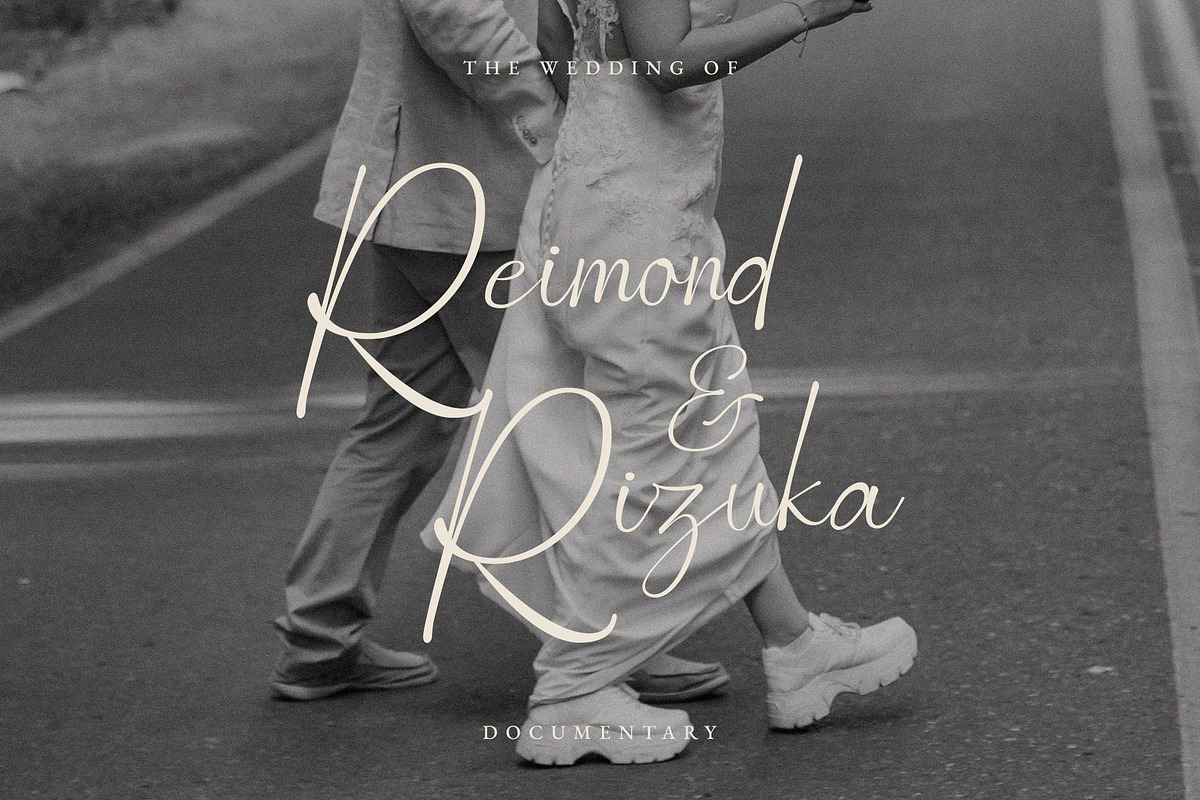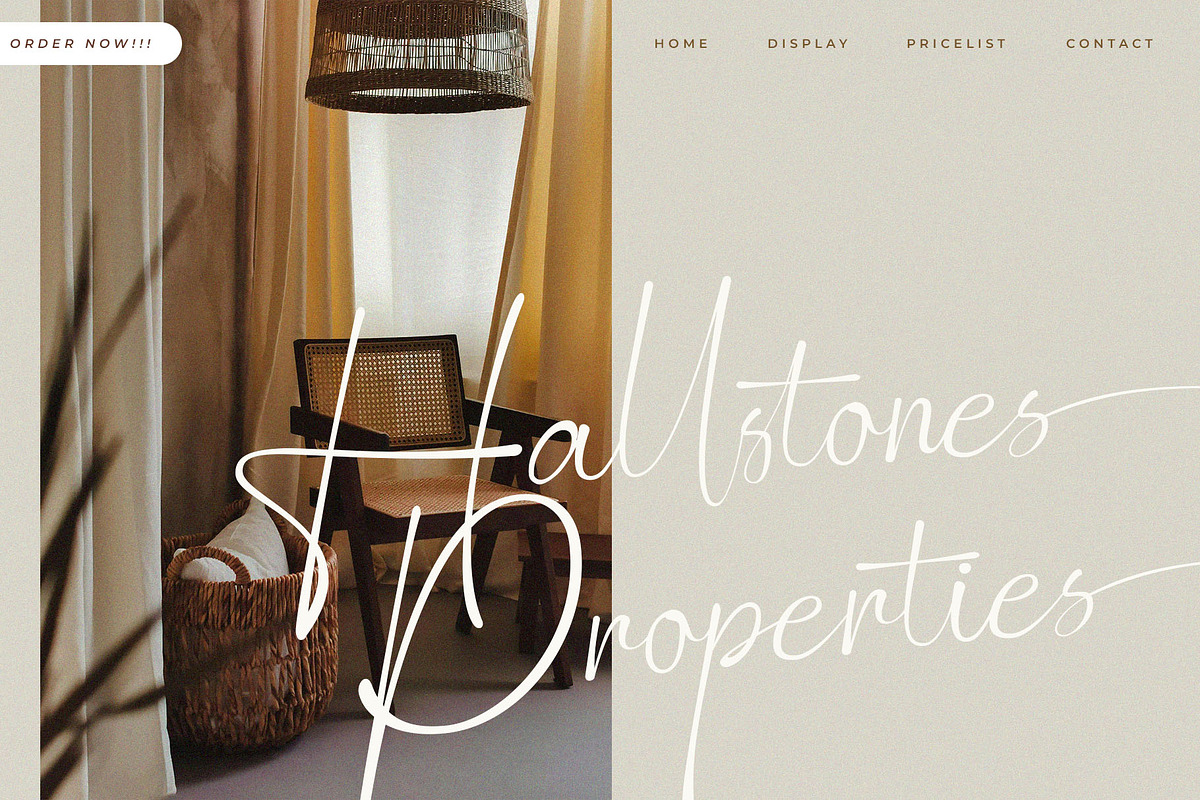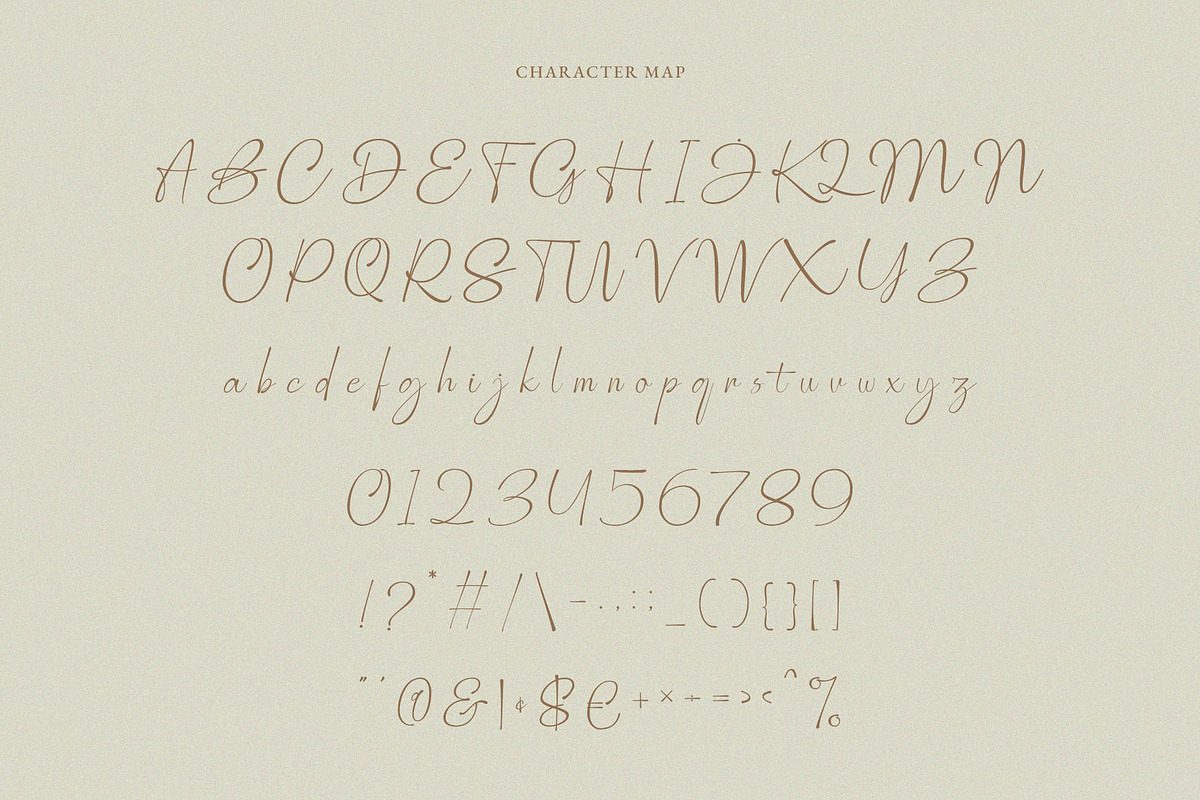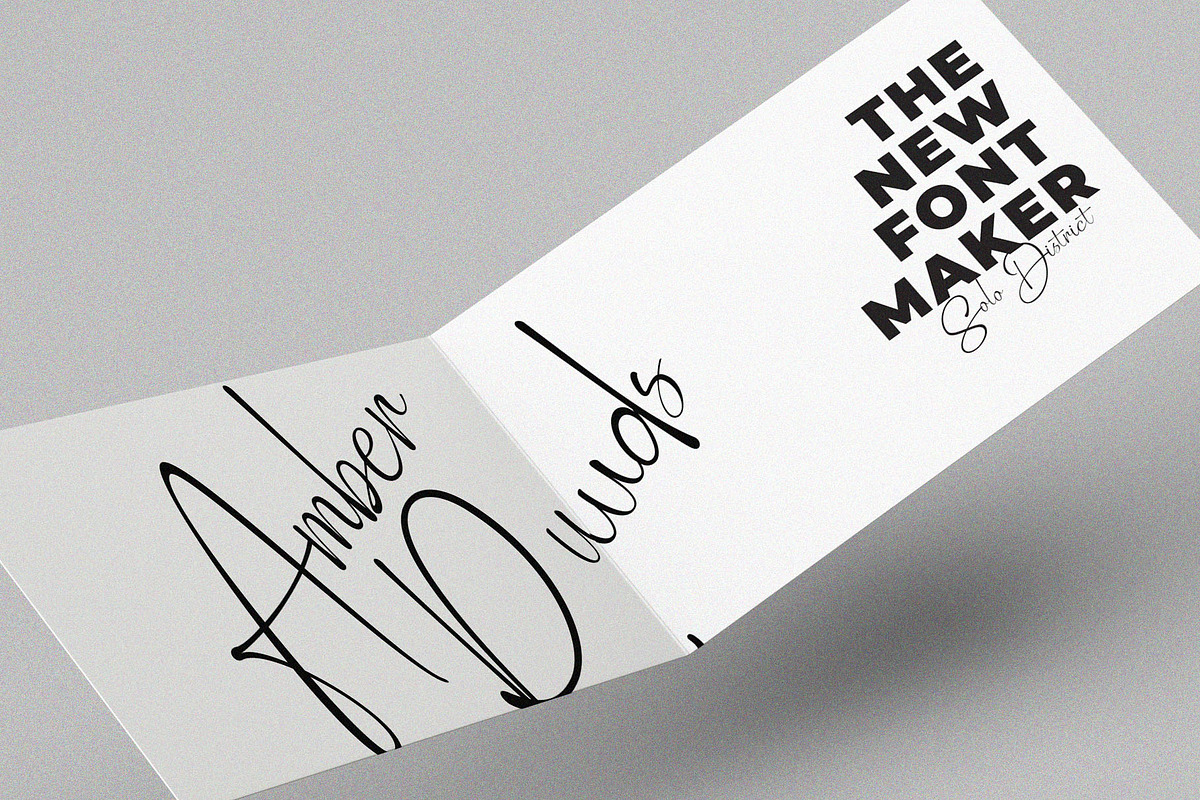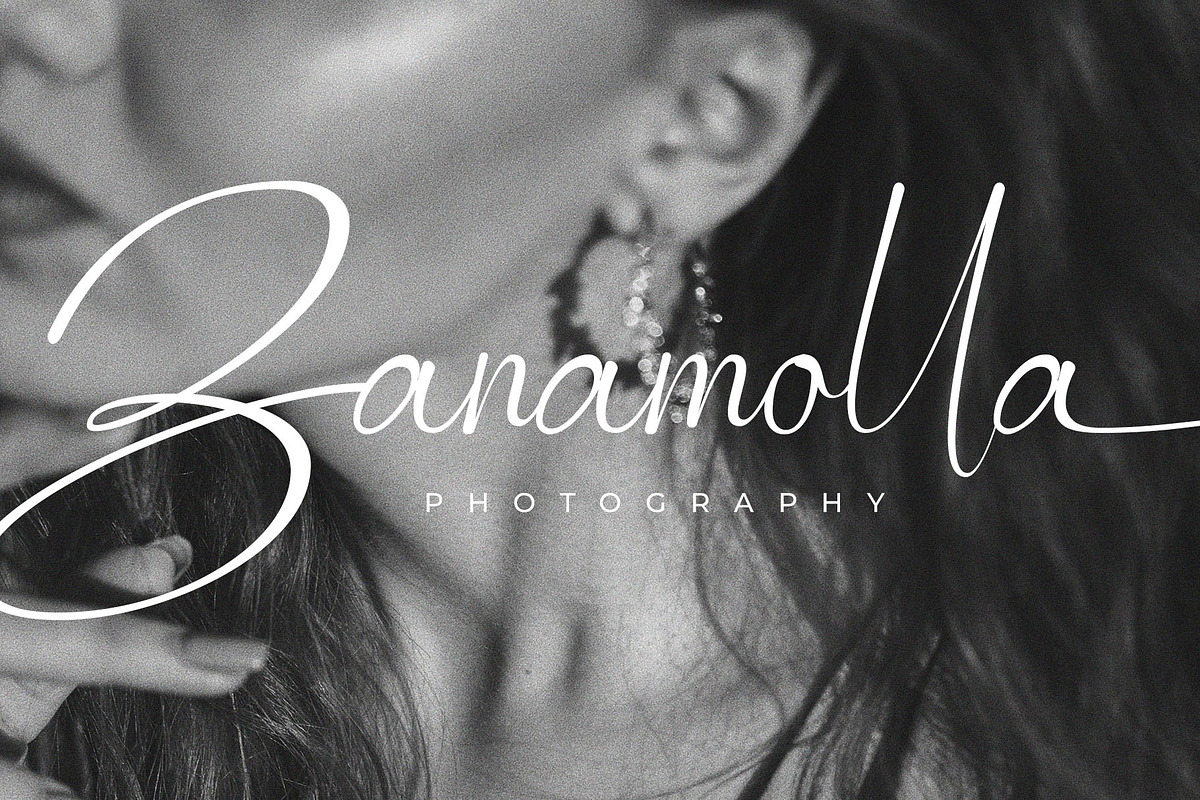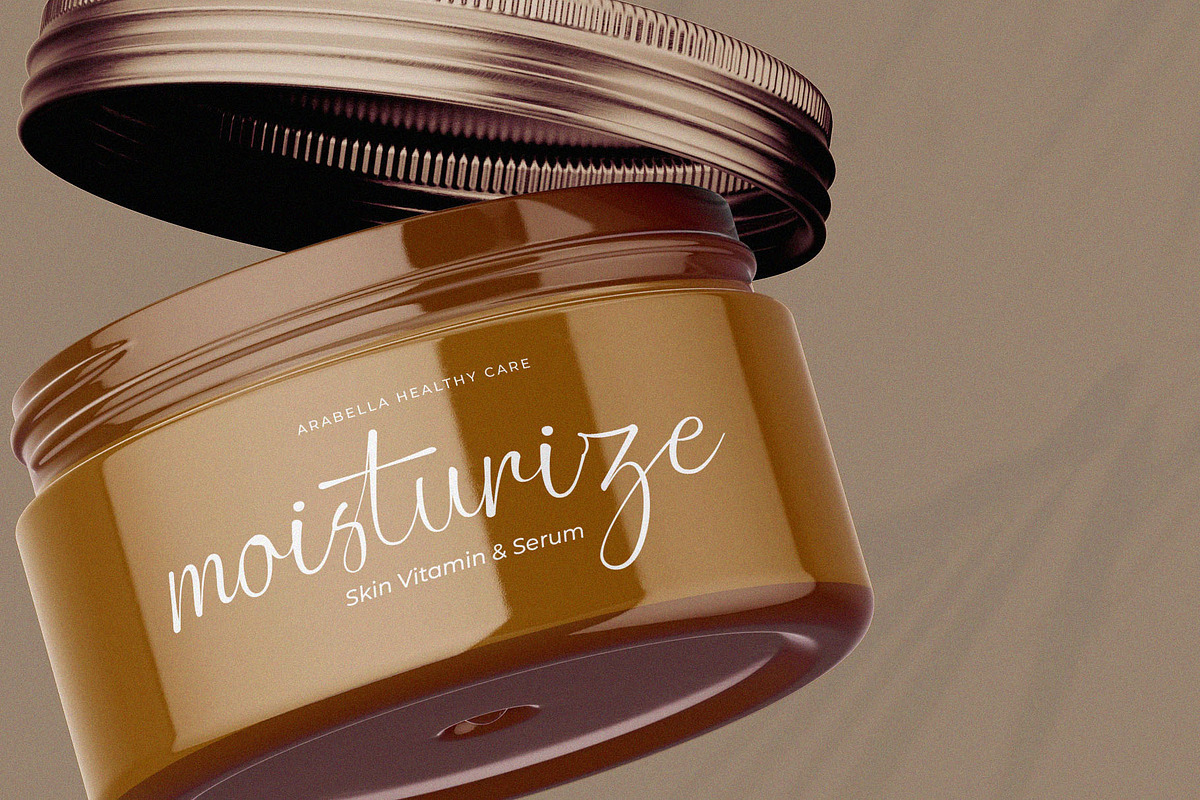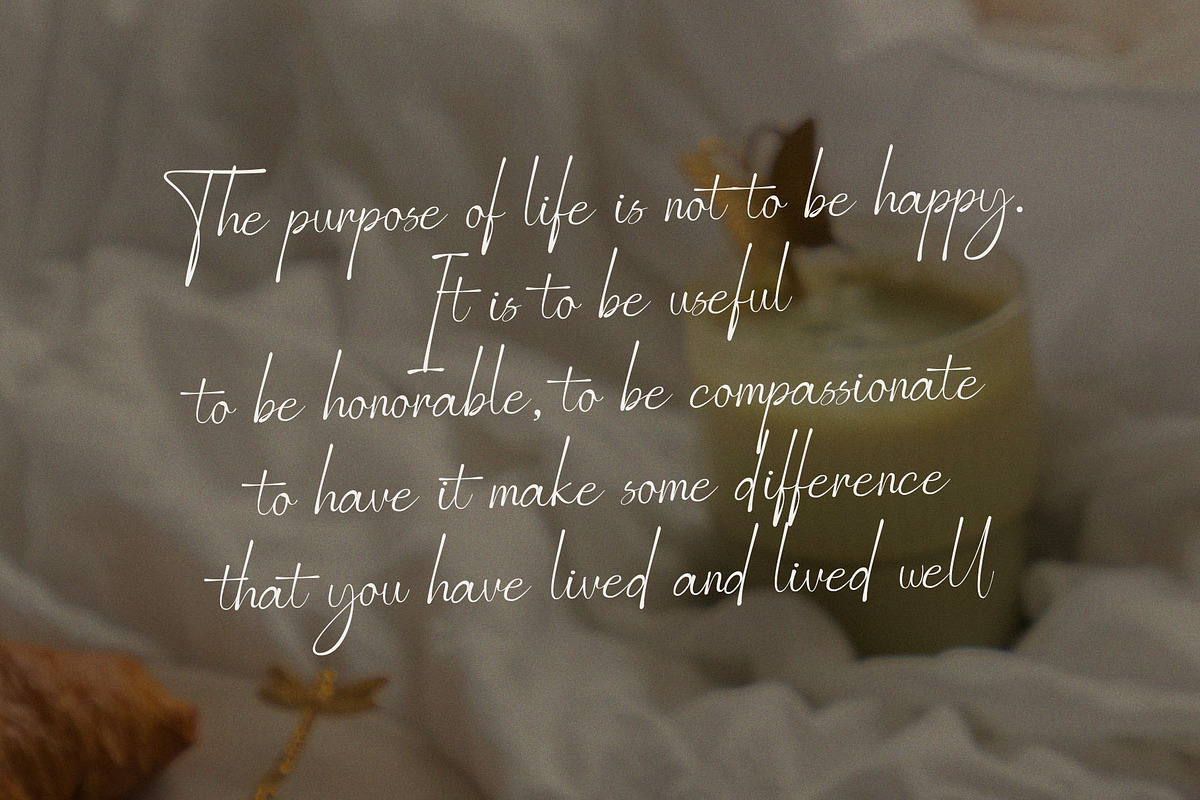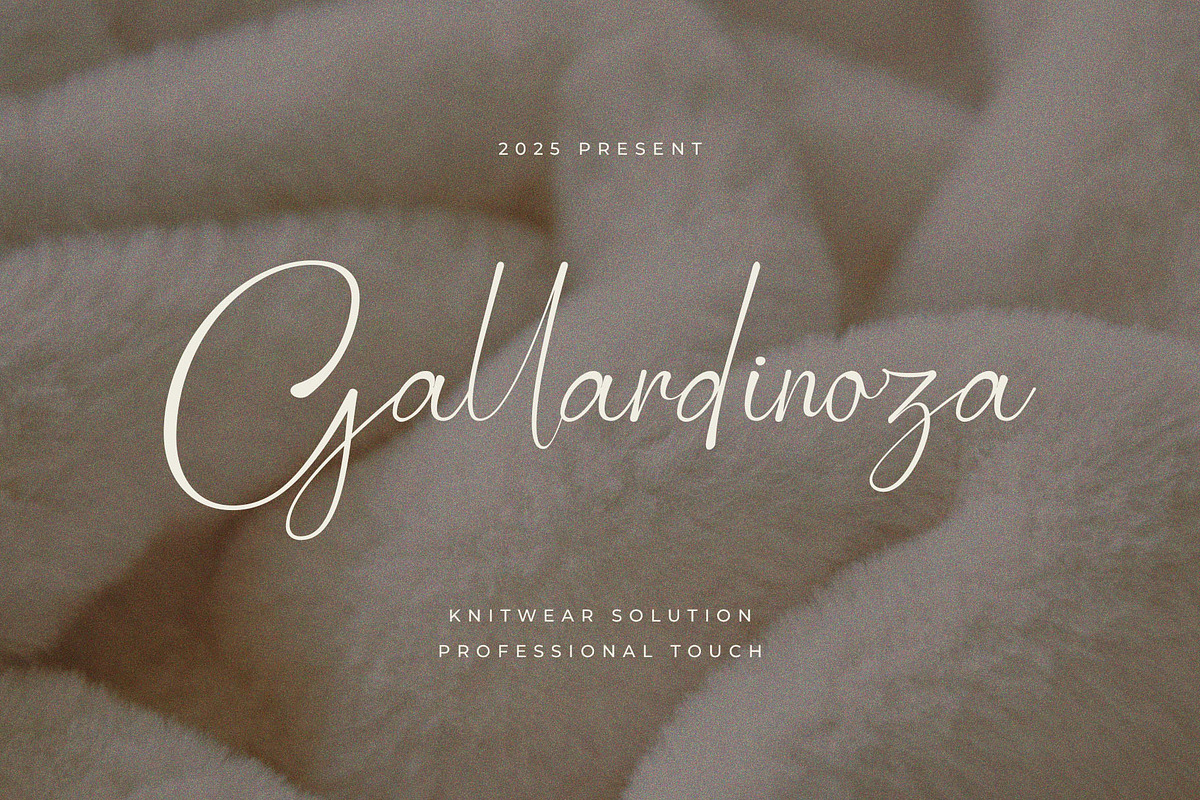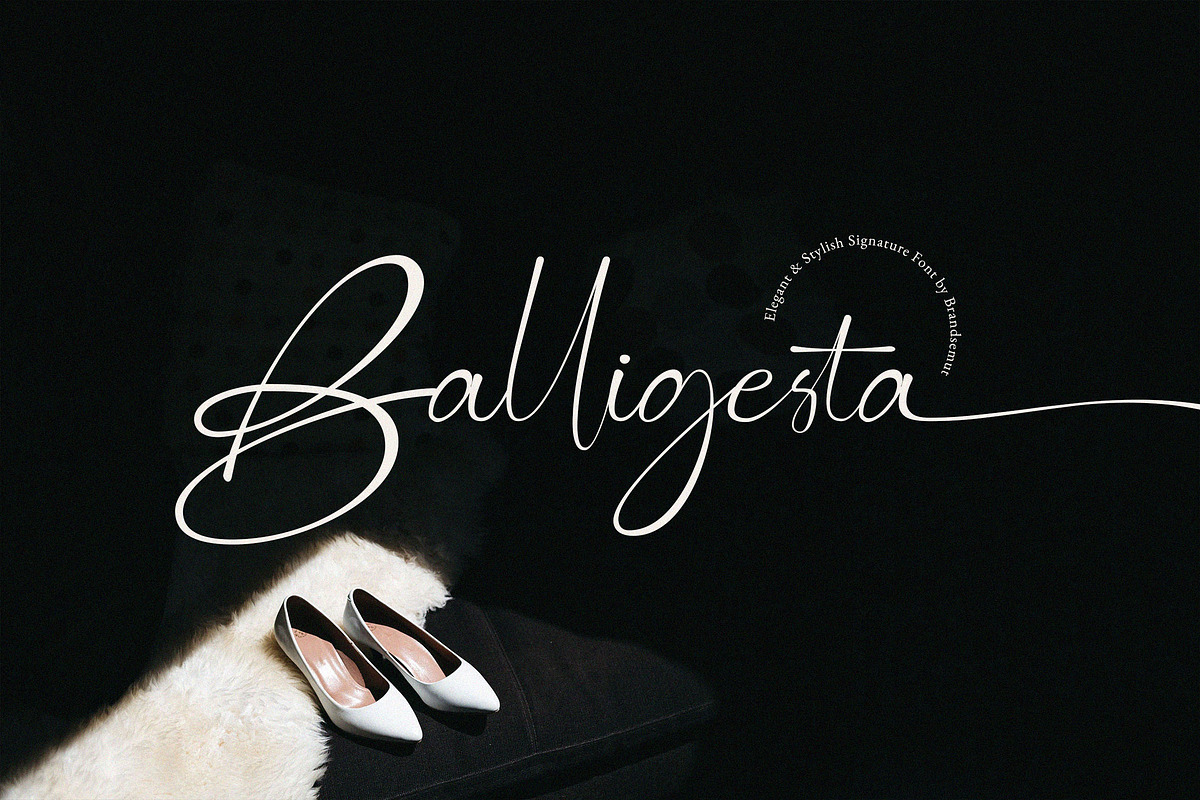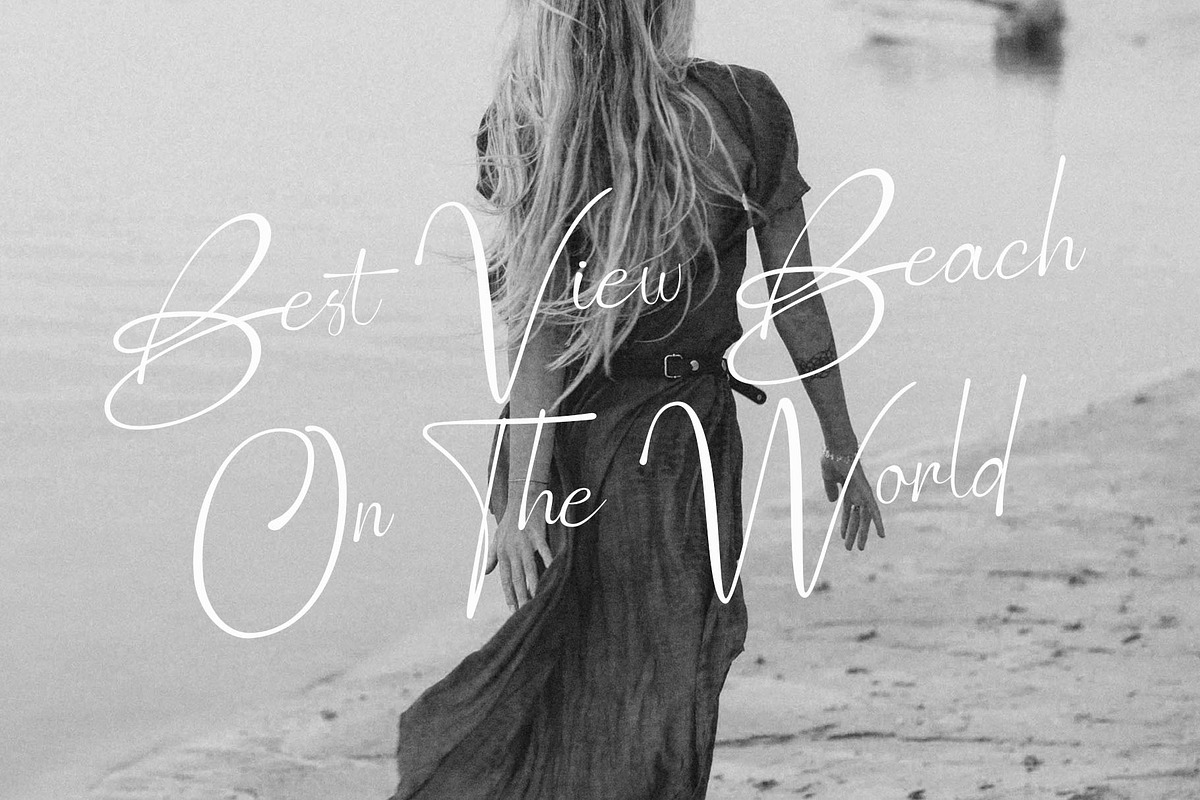
Balligesta Modern Stylish Signature
Introducing the new Balligesta Signature Font is a elegant and stylish handwritten script, that you can use to perfect your design. You will get full set of lowercase and uppercase letters, multilingual, numerals and punctuation.